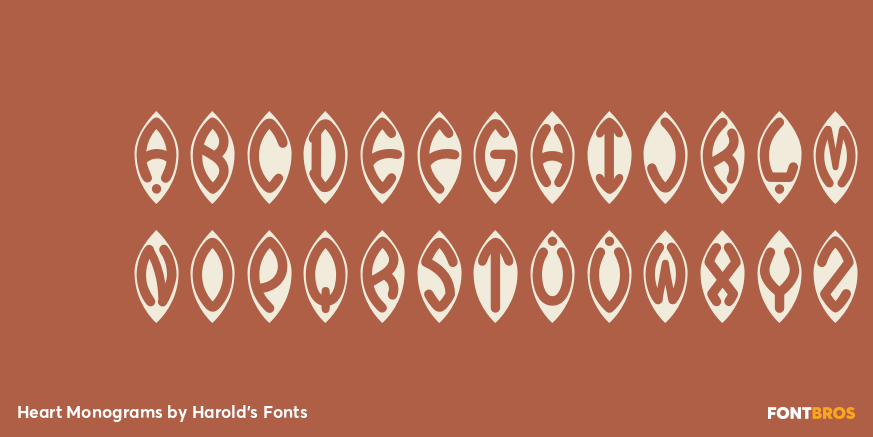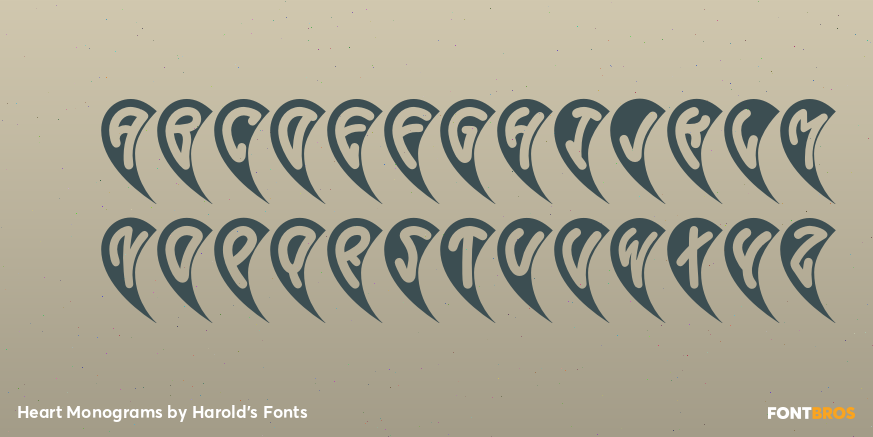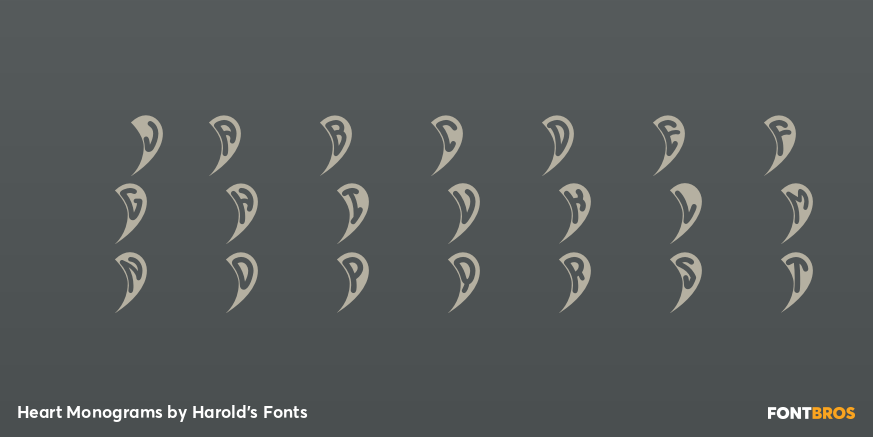
Heart Monograms
Font Family by Harold's Fonts
Buy NowHeart Monograms is a set of 4 fonts that let you create custom 2- and 3-letter monograms within a heart shape, with a black or white background and a choice of decorative frames.